Retro aesthetic fonts’ rounded edges and striking boldness can take people down memory lane and lure them to delve into the message you are trying to deliver. Our fonts create vintage looks in your designs with their unique styles and visually communicate with your audience through their legibility.
Key Takeaways:
- Good retro fonts usually have striking weight and rounded letter shapes.
- The aesthetic vibe of retro fonts involves modern swirls and dramatic alternates.
21 Aesthetic Retro Fonts That Highlight Vintage Looks
For good vintage designs, people tend to focus on displaying the aesthetic side as much as possible. However, it is important to consider which retro font can represent your message well. Below, we have compiled stylish and aesthetic fonts that showcase retro vibes, too.
1. Retro Rapture – Duo Retro Font
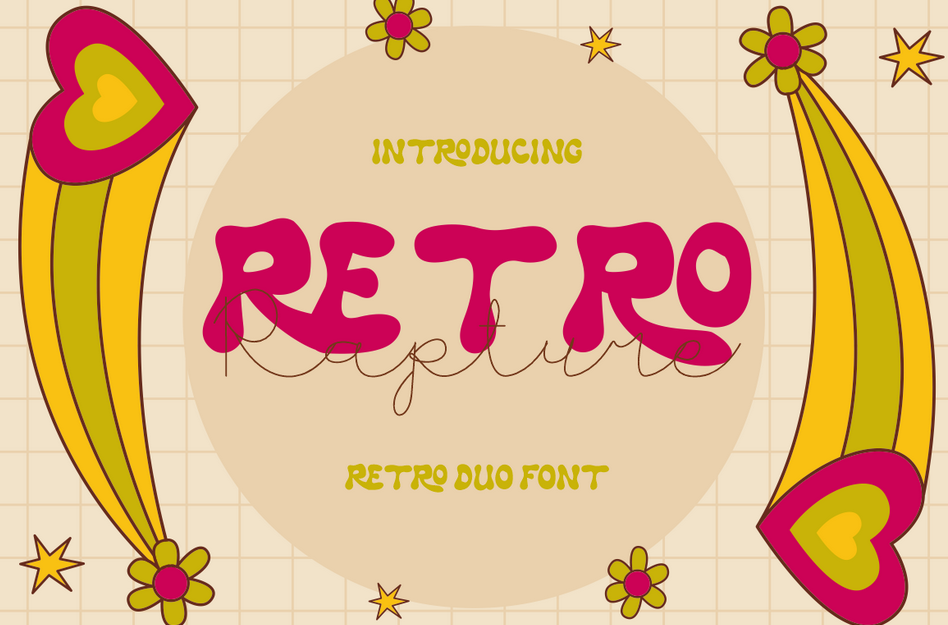
Retro Rapture’s whimsical letter shapes and ligatures represent the modern side of the font, whereas its bold and smooth strokes thicken the 70s-vintage vibe.
2. Vintage Binary – Display Typeface Font
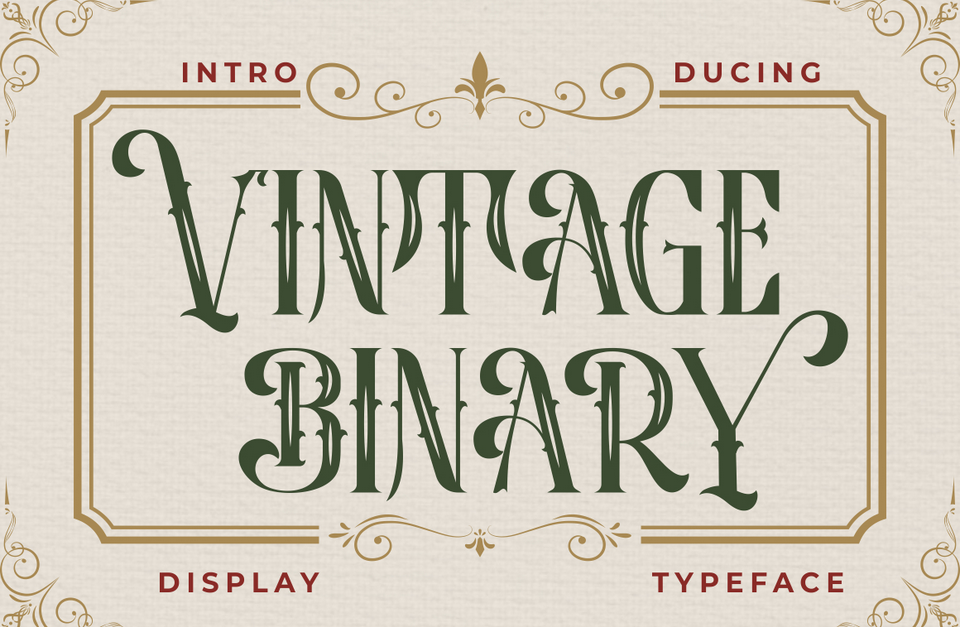
Vintage Binary greets you with its ornamental strokes and nostalgic contrast. Display the gorgeous typeface on your headlines and posters for a strong vintage charm.
3. Classic Cassette Vintage Display Font
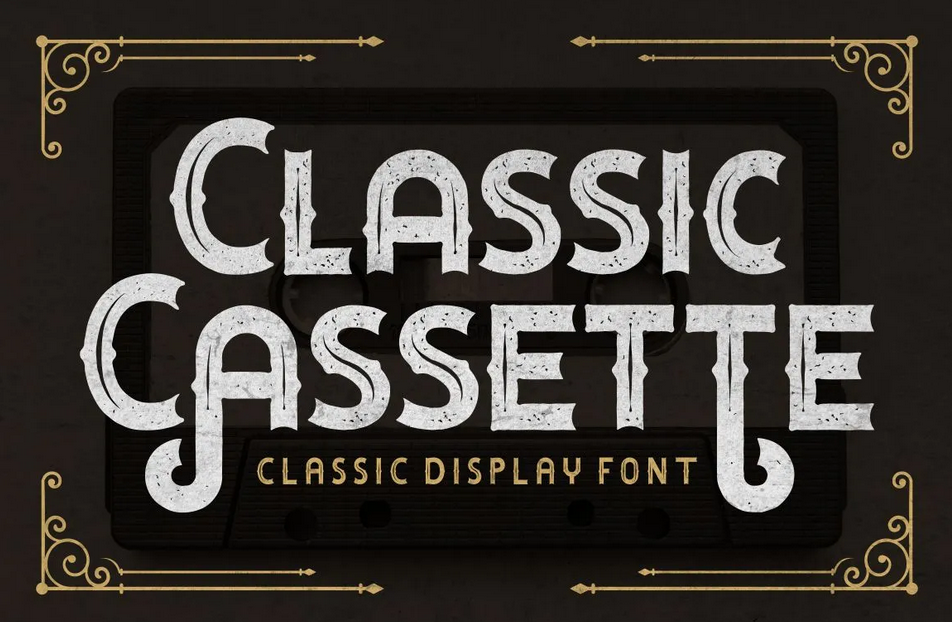
Classic Cassette’s tape-reel letterforms and cane-shaped swashes are in harmony with each other. Highlight the beautiful union on your album covers and posters for classic vintage looks.
4. Heathfield
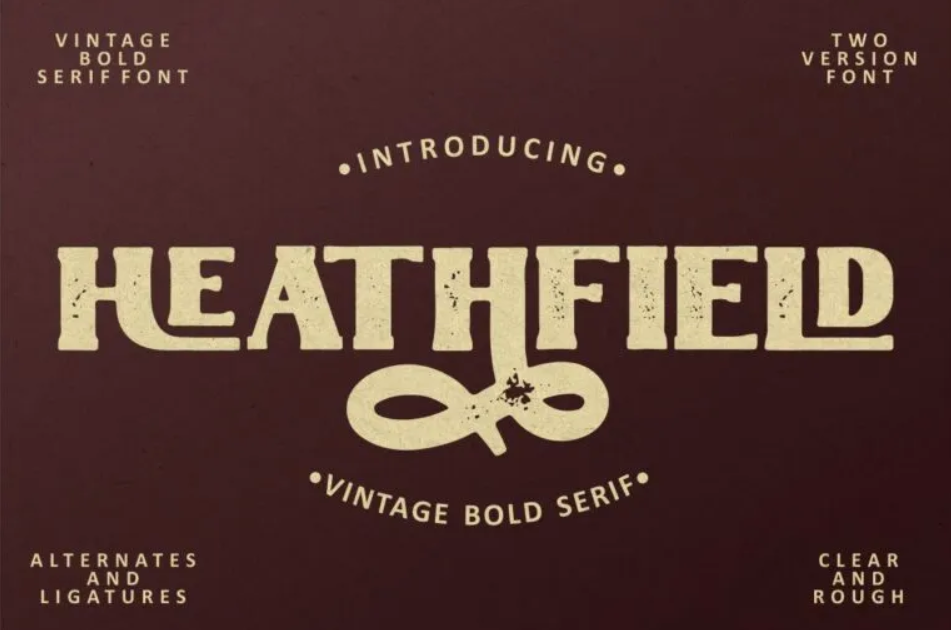
Heathfield’s serif letter shapes bring back happy memories. The font’s contemporary baselines and diverse swashes give your designs more exclusive vintage looks.
5. Visaka
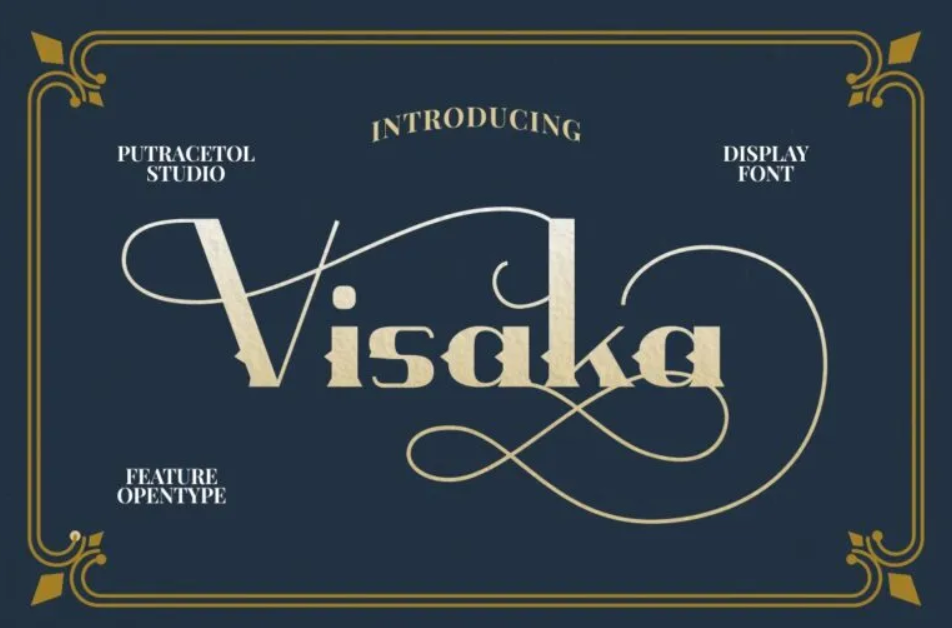
Visaka has eye-catching stems and looping swashes. Take advantage of the font’s clean lines and apply it to apparel designs for a legible vintage appearance.
6. Royal Queen
Royal Queen is one of the retro aesthetic fonts that exude the elegant presence of a Queen entering a room through its medium weight and classy letter shapes.
7. Royal King
Royal King’s presence is as charismatic as a respected king, with its majestic swashes. Use the font’s readable letter forms on your branding designs and greeting cards.
8. Vintage Museum – Vintage Sans Display
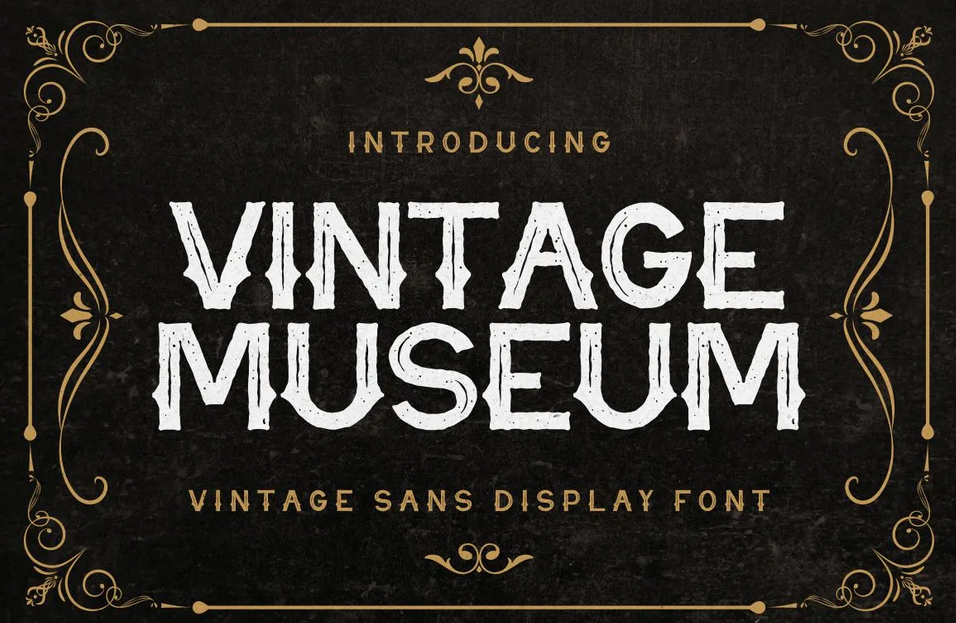
Vintage Museum’s rough edges and straightforward strokes are a harmonious combination of vintage and sans serif fonts, like a museum in the center of a city with its priceless artefacts.
9. Psykron – Retro Script Font
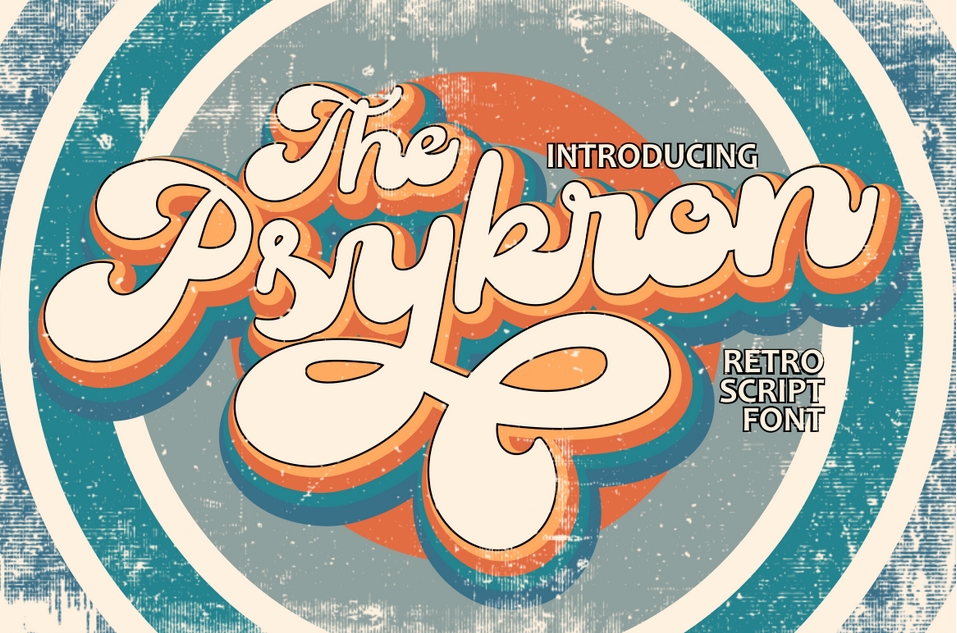
Psykron’s strokes are elegantly carved, with their lower section displaying thicker boldness. Showcase the vintage styles in your titles and magazine layouts for a touch of nostalgia.
10. Old Rocket – Retro Typeface
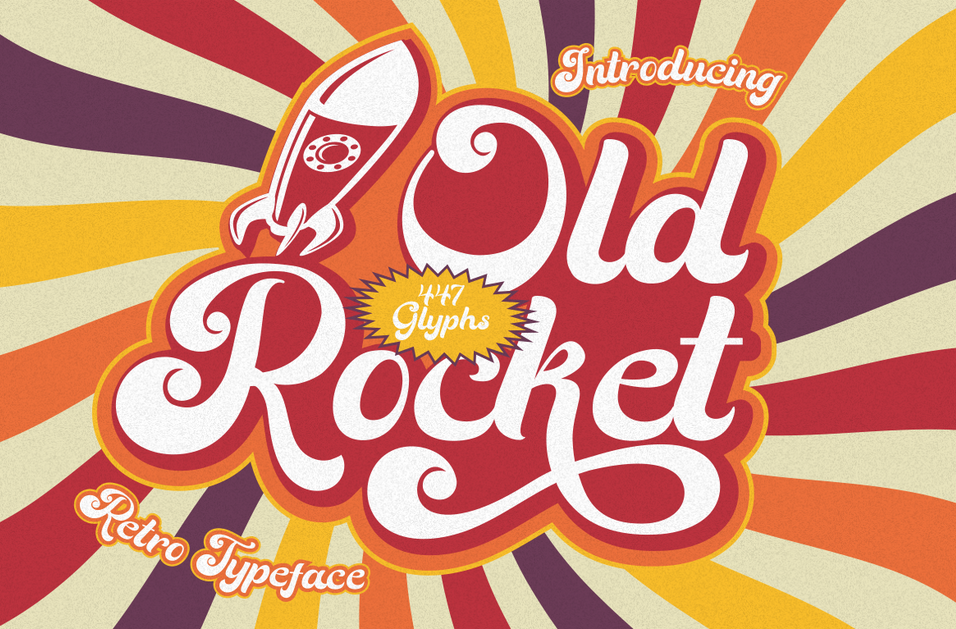
Old Rocket’s rocket-like ovals and striking letterforms are as sensational as a launching rocket. Feel the font’s groovy and retro impact on your poster creations and logo designs.
11. Last Show – Bold Retro Script Font
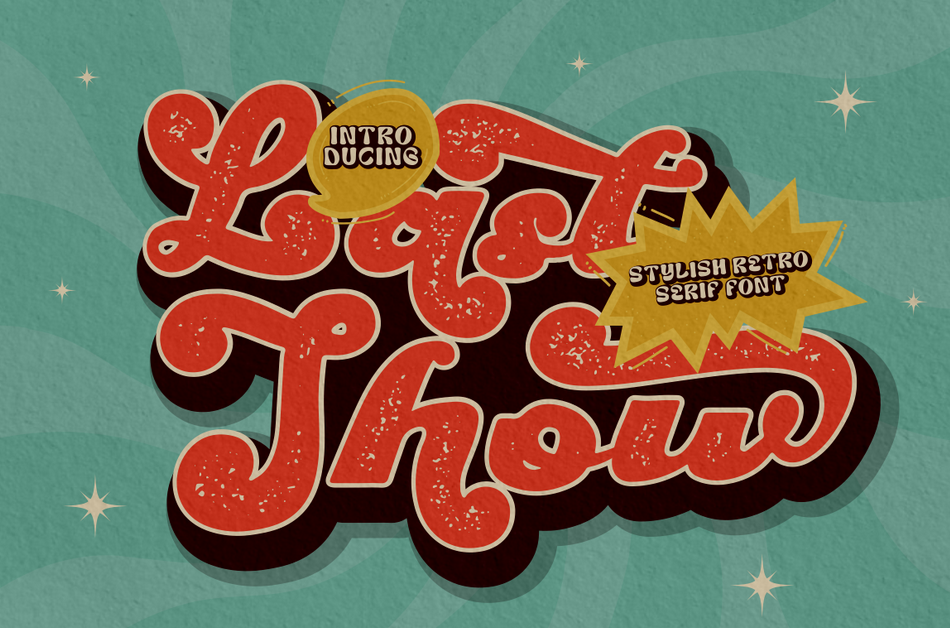
Last Show has stylish strokes with striking boldness and extraordinary slashes, like a show with long-lasting impressing. It also offers two versions: the regular and the rough one.
12. This Vintage One – Retro Font
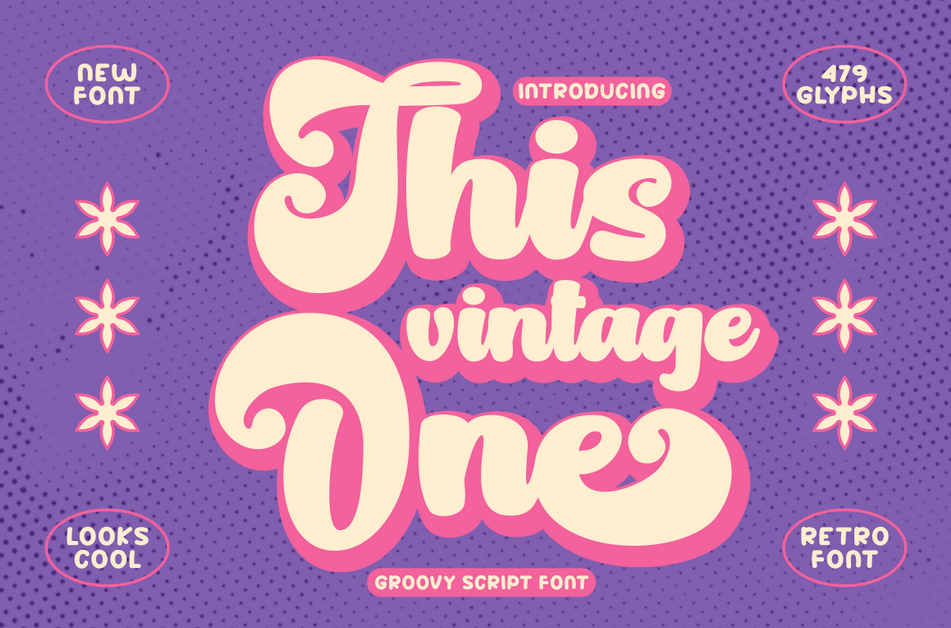
This Vintage One is one of the retro aesthetic fonts that embodies vintage style through its dramatic thickness and huge swashes. Use the font’s groovy yet classic appearance on your signages and business branding designs.
13. Magic Whip – Retro Script Bold Font
Magic Whip’s handmade strokes and extraordinary contrast capture the essence of the 80s-script font style.Utilise the font’s alternates on your quotes for vintage and astonishing designs.
14. Yesterday Time
Yesterday Time is the reminiscence of the sublime handwritten strokes, with clean lines and snow-like textures. Showcase the font’s infinite-symbol-shaped swashes on your book covers and apparel.
15. The Bad Vintage
As opposed to the font’s name, The Bad Vintage’s thickness is balanced, with its good-looking lines and luxurious swashes.
16. Curly Keken
Curly Keken’s letter shapes are as curly fries. Decorate your packaging designs with its astounding boldness and alternates.
17. Harmony Vintage
Harmony Vintage is the phenomenal fusion of the script’s flowing strokes and the vintage’s noticeable thickness. Charm your audience with this font’s harmony through your logos and headlines.
18. Aesthetic Vintage
Aesthethic Vintage’s ribbon-like swashes are undeniably sweet. It also offers the rough-textured version if you wish your quotes and posters to be more daring.
19. Antique Vignette
Retro fonts invite people to recollect joyful memories through their striking weight and classic letter shapes. Yet, their stylish and contemporary decorations can make your designs look more up-to-date and aesthetic.